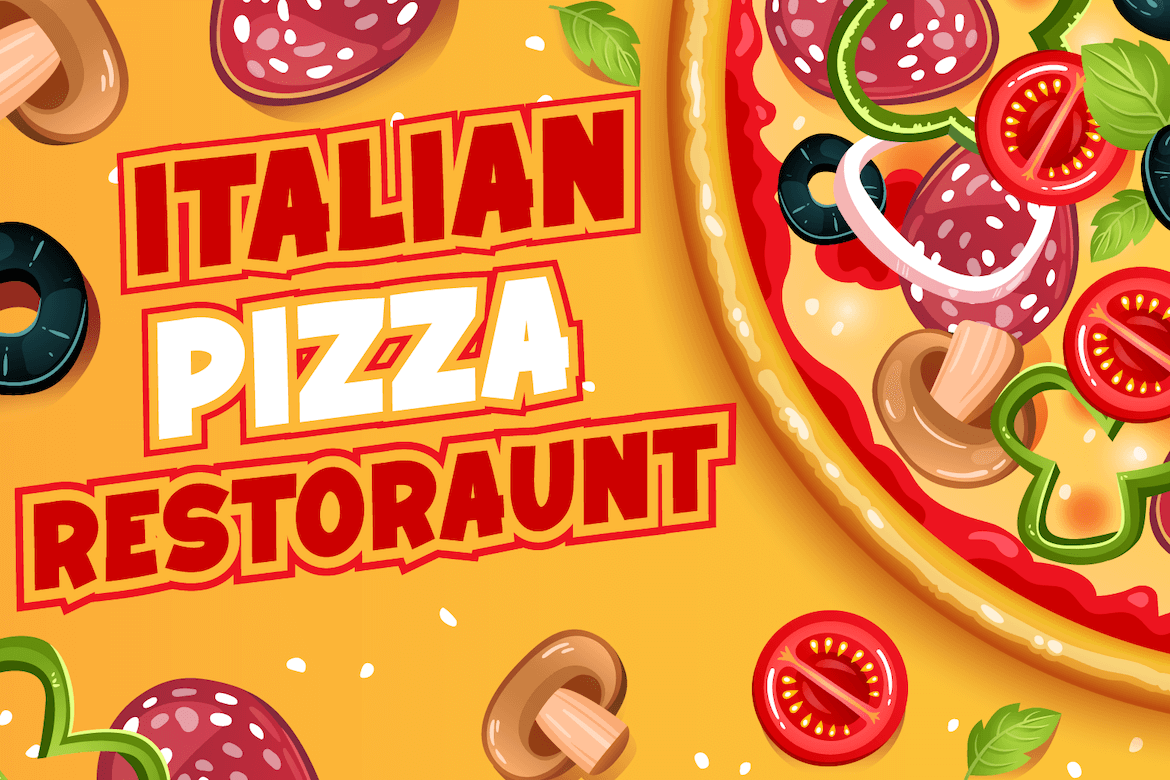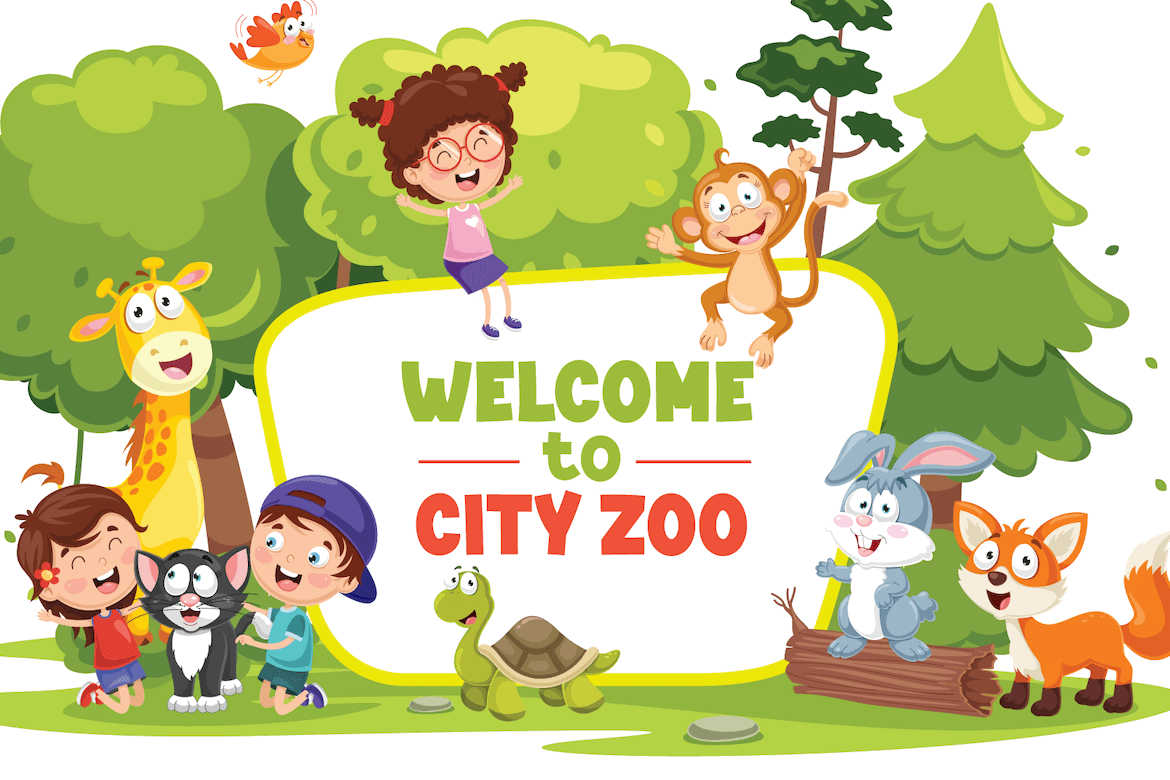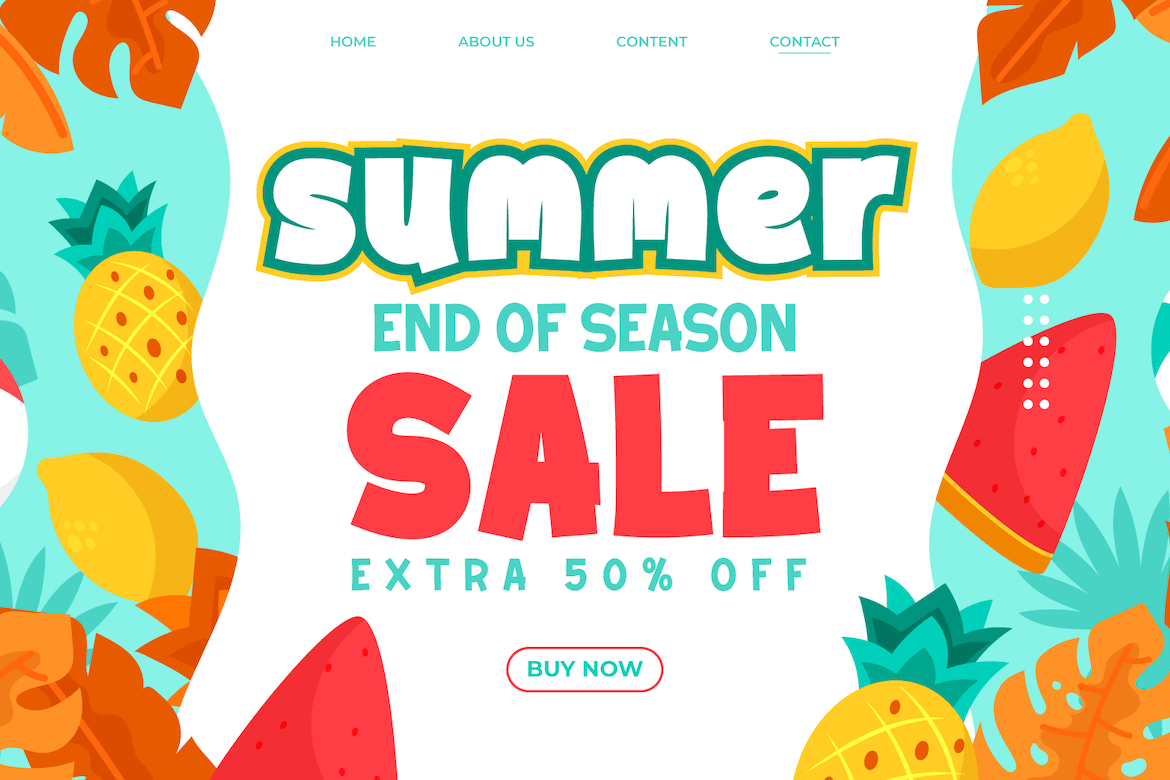
Artho Font
Artho Display Font
This is a bold and thick lettered display font. Whatever the topic, this font will be a wonderful asset to your font library, as it has the potential to enhance any creation.